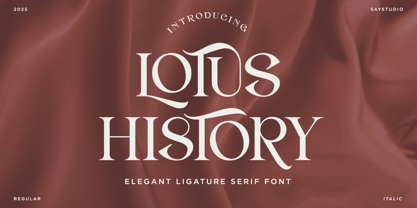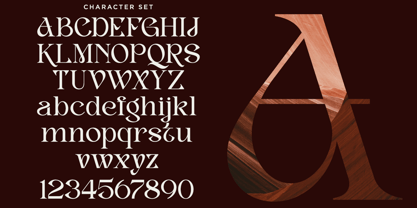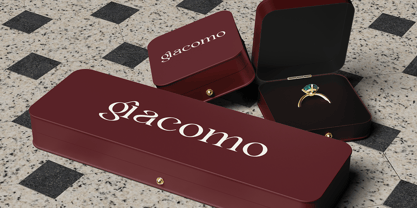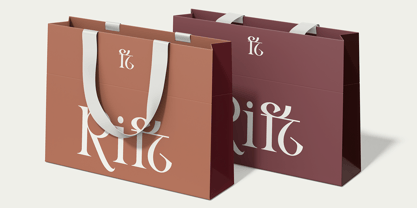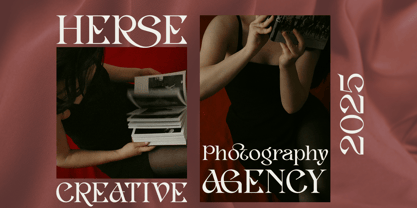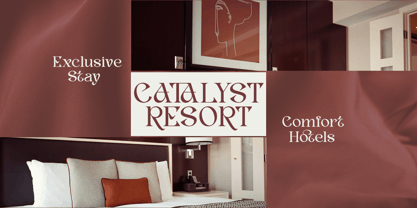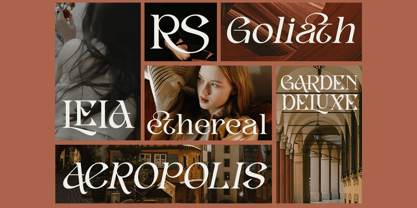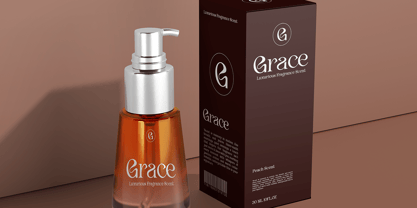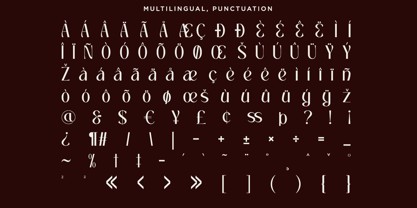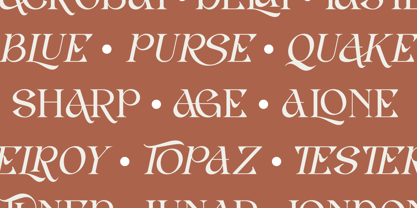
Lotus History
by Say Studio
The Lotus History Font Family was designed by Mussyayin and published by Say Studio. Lotus History contains 2 styles and family package options. More about this family
Lotus History is an elegant ligatures serif font. Each letter is beautifully crafted which has an elegant look that attracts a tall, minimalist and slender shape. Lotus History is a typeface that combines the elegance of a serif with a unique and decorative binding, creating a more harmonious and visually appealing look. This font has alternate and ligature features, perfect for using it in creative and artistic designs, such as logos, branding, headlines, titles, invitations, posters and more.
- Stylistic Alternates
- Ligatures Character
Designers: Mussyayin
Foundry: Say Studio